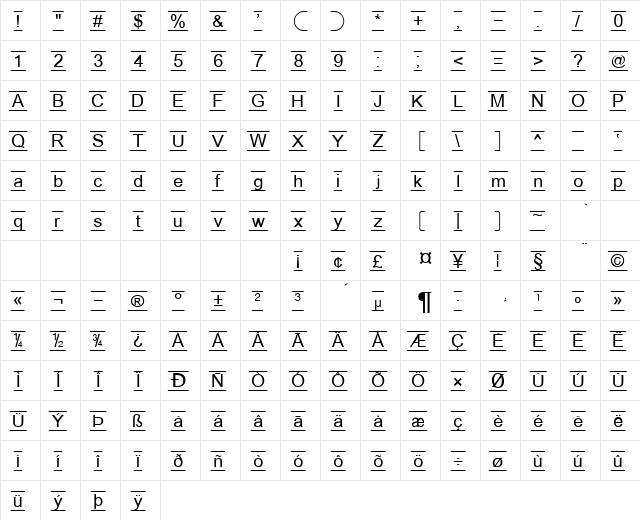
FIBox Normal
Design Context for FIBox Typeface
FIBox takes a measured approach to typography — its balanced proportions and neutral character make it a reliable workhorse for both digital and print work.